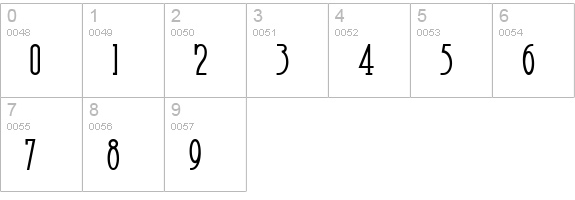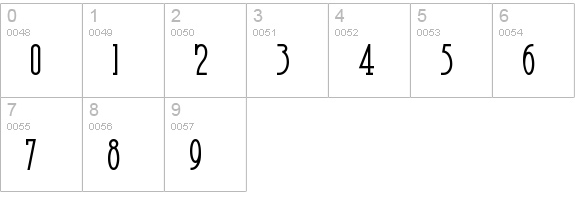
Risky Business Square NF Light Font Details
Risky Business Square NF Light is a refined, elegant variant in the Risky typeface family \xE2\x80\x94 well suited to elegant body text, refined sub-headings, and luxury branding.
Risky Business Square NF Light font is a modern and sleek typeface that exudes a sense of sophistication and elegance. Its clean lines and unique square shapes make it perfect for a wide range of design projects, from branding to marketing materials and more. The light weight of this font adds a touch of subtlety and refinement to any text it is applied to. What's even better is that Risky Business Square NF Light font is available for free download at FontsMarket.com. This means you can easily access and use this stunning font in your projects without any hassle. Don't miss out on the opportunity to enhance your designs with this beautiful typeface – download Risky Business Square NF Light font today!